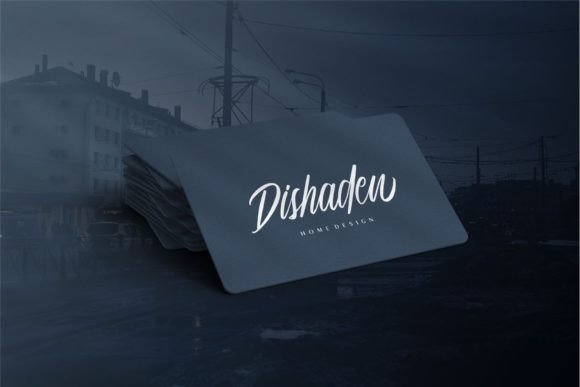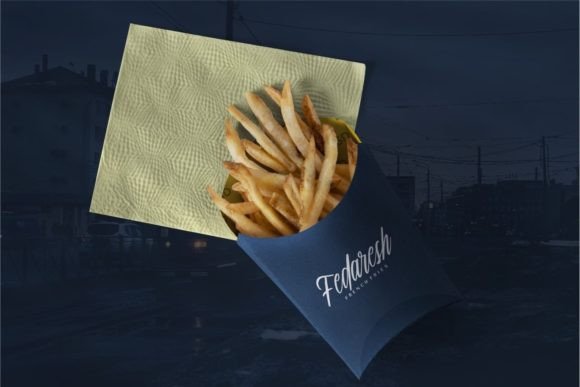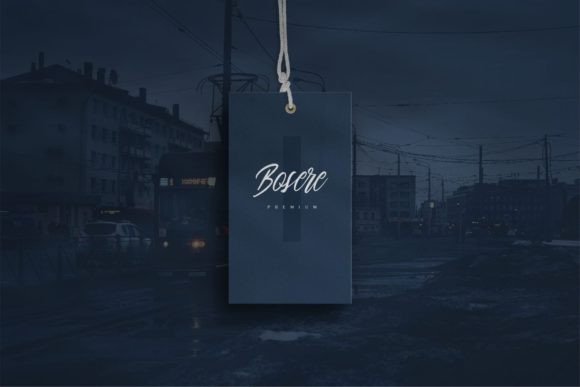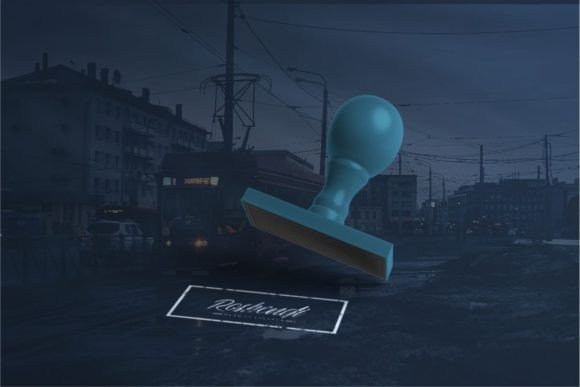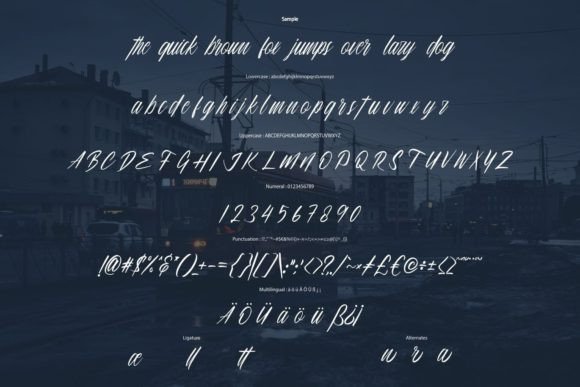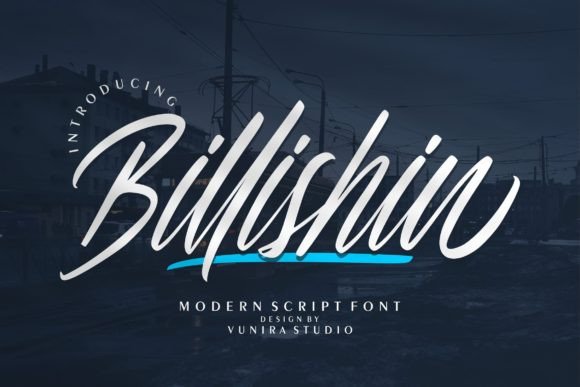
Introducing Billishin Font: Elevate Your Designs with Elegance and Sophistication
In the world of typography, a font can make or break a design. It’s the perfect blend of style, elegance, and readability that can elevate a project from ordinary to extraordinary. If you’re a designer, craftsperson, or simply someone who appreciates beautiful typography, you’re in luck. Meet Billishin Font, an elegant script font that embodies the perfect balance of contemporary flair and timeless classic calligraphy.
The Inspiration Behind Billishin Font
Billishin Font draws inspiration from the traditional art of calligraphy, but with a modern twist. The creator of this stunning font aimed to craft a typeface that would exude elegance, sophistication, and a sense of refinement. The result is a font that is neither too thin nor too thick, but rather, perfectly balanced and varied. This balance ensures that Billishin Font can be used across various design projects, from elegant wedding invitations to stylish brand logos.
Key Features of Billishin Font
- Elegant Script Style: Billishin Font boasts an elegant script style that is reminiscent of traditional calligraphy. Its fluid strokes and beautiful ligatures make it perfect for designs that require a touch of sophistication.
- Contemporary Atmosphere: While inspired by classic calligraphy, Billishin Font has a distinctly contemporary feel. This makes it versatile enough to be used in modern design projects that demand a fresh and current aesthetic.
- PUA Encoded: One of the standout features of Billishin Font is its PUA (Private Use Area) encoding. This means that users can easily access a wide range of glyphs and ligatures, allowing for greater creativity and flexibility in design.
- Balanced and Varied: The font’s balanced and varied strokes ensure that it remains legible and visually appealing, even at smaller sizes. This makes it ideal for use in body text, headings, and titles.
Applications of Billishin Font
Billishin Font’s versatility makes it suitable for a wide range of design applications. Here are a few ideas to get you started:
- Wedding and Event Stationery: Create beautiful wedding invitations, save-the-date cards, and event posters that exude elegance and sophistication.
- Branding and Logo Design: Use Billishin Font to craft stunning brand logos, business cards, and letterheads that reflect your brand’s personality and values.
- Packaging Design: Elevate your product packaging with Billishin Font, adding a touch of luxury and refinement to your products.
- Digital Design: Incorporate Billishin Font into your digital designs, such as website headers, social media graphics, and email newsletters, to add a level of sophistication and style.
Tips for Using Billishin Font Effectively
To get the most out of Billishin Font, here are a few tips to keep in mind:
- Experiment with Ligatures: Take advantage of Billishin Font’s beautiful ligatures to add a touch of elegance to your designs.
- Play with Font Sizes: Use Billishin Font in a variety of sizes to create visual hierarchy and add depth to your designs.
- Pair with Complementary Fonts: Pair Billishin Font with complementary fonts to create a unique and visually appealing typography combination.
Billishin Font is a stunning script font that offers the perfect blend of elegance, sophistication, and versatility. Whether you’re a designer, craftsperson, or simply someone who appreciates beautiful typography, Billishin Font is sure to elevate your designs to new heights. With its PUA encoding, balanced and varied strokes, and contemporary atmosphere, this font is a must-have for anyone looking to add a touch of luxury and refinement to their projects.